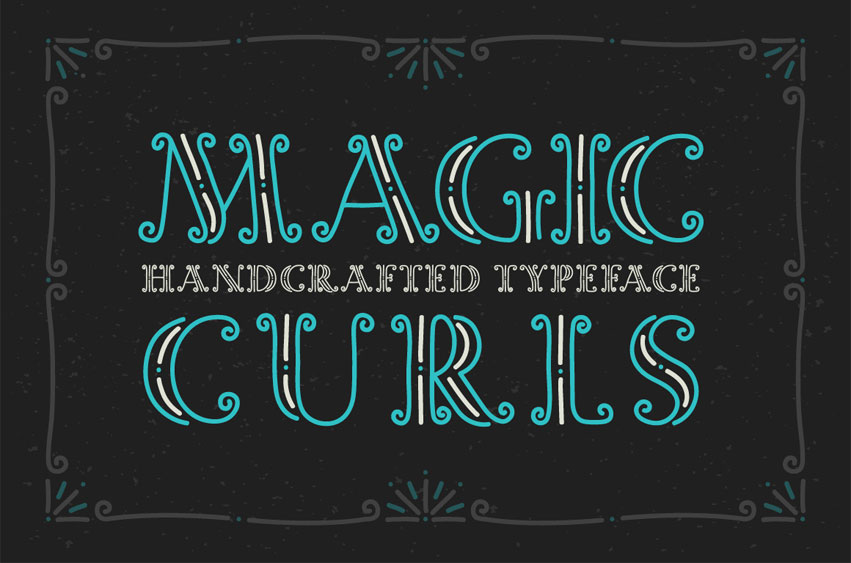
Magic Curls Font
Magic Curls Font is a decorative display font.
This handcrafted typeface has a magical look and will suit perfect for a fantasy fairy tale design or anything else you can image this font with.